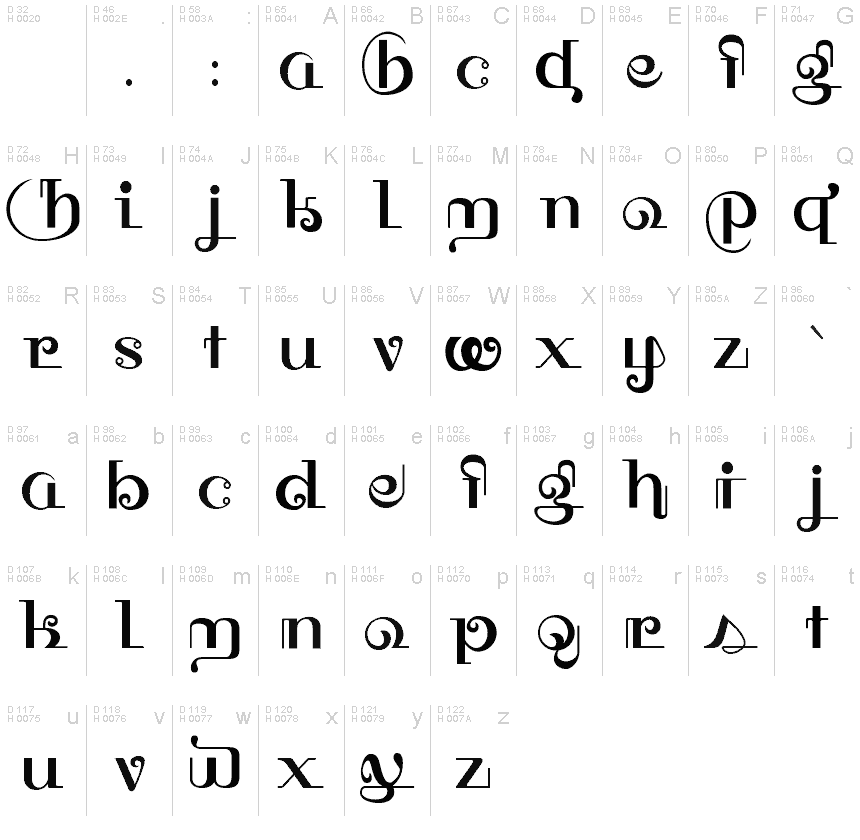
HFF Thai Dye by Have Fun with Fonts is a free experimental display font with extreme stroke contrast and sharply altered letterforms. Tall black uprights meet hairline curves and oversized, looping forms.
Designers working in fashion, music, and alternative culture can draw on its strange elegance for posters, editorial covers, and event graphics with a theatrical or surreal edge. Boutique packaging and identity work are another good fit, since the broken geometry and ornamental curves can turn a brand name into an abstract emblem rather than ordinary lettering on the page.
Based on “Siamese” from Dan Solo’s Special Effects and Topical Alphabets.
HFF Thai Dye is based on Siamese, from "Special-Effects and Topical Alphabets: 100 Complete Fonts" by Dan X. Solo, first published by Dover Publications in 1978. Siamese is also featured in "The Solotype Catalog of 4,147 Display Typefaces".